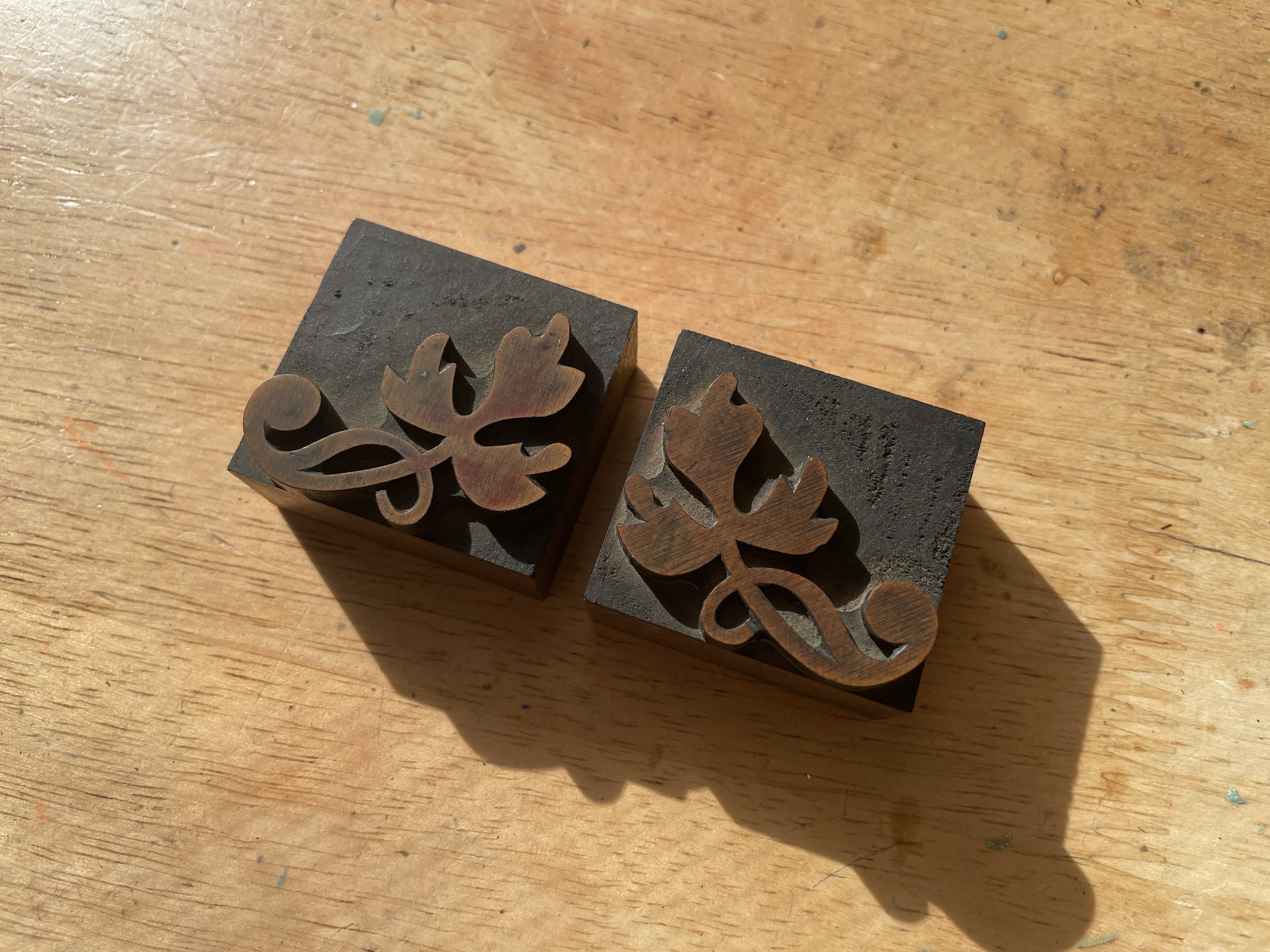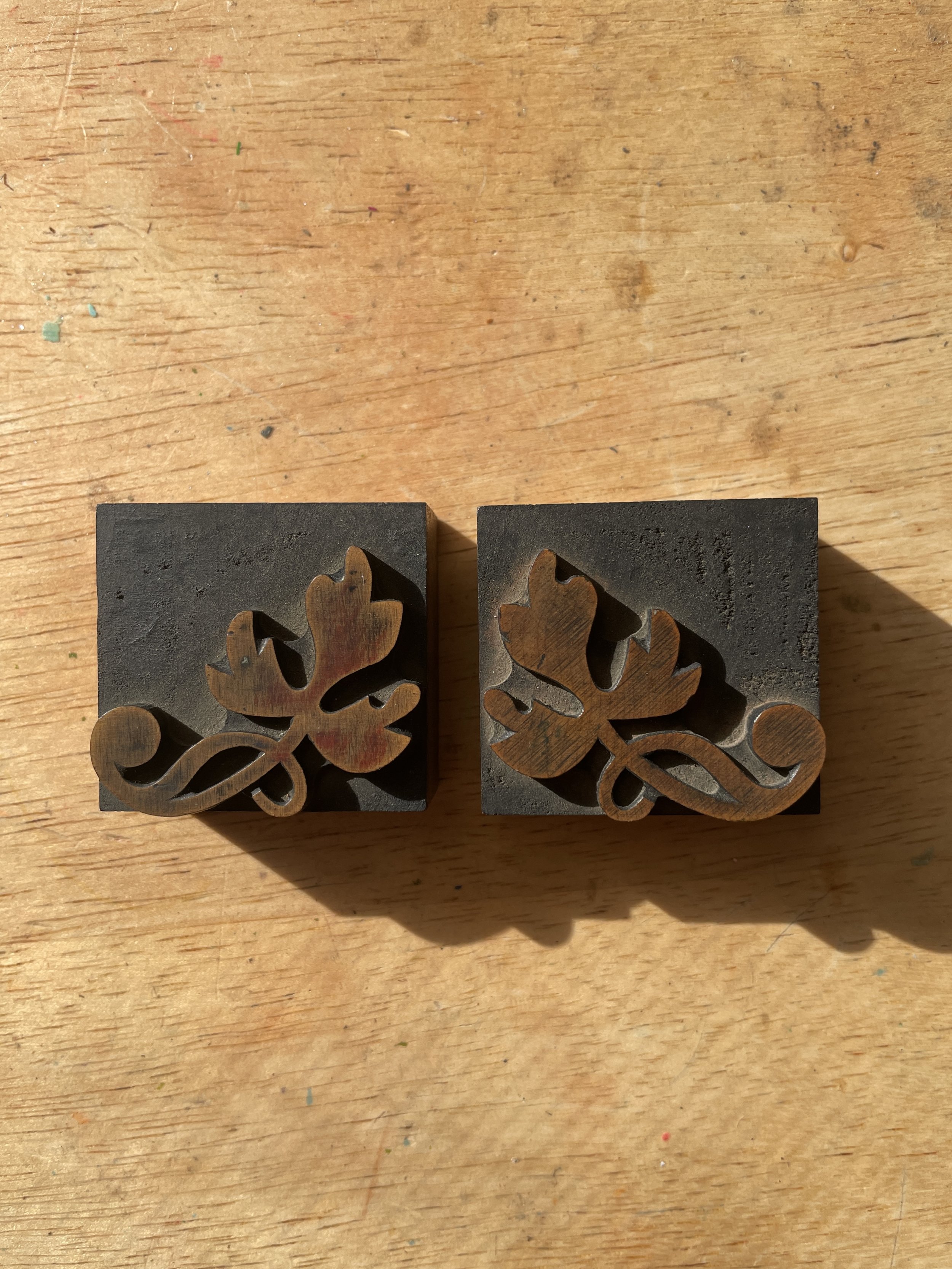
10 Line Hamilton Decorative Leaf Ornament Pair Wood Type (W44)
A beautiful and hard to find pair of Hamilton decorative 10 line flourishes for wood type setting.